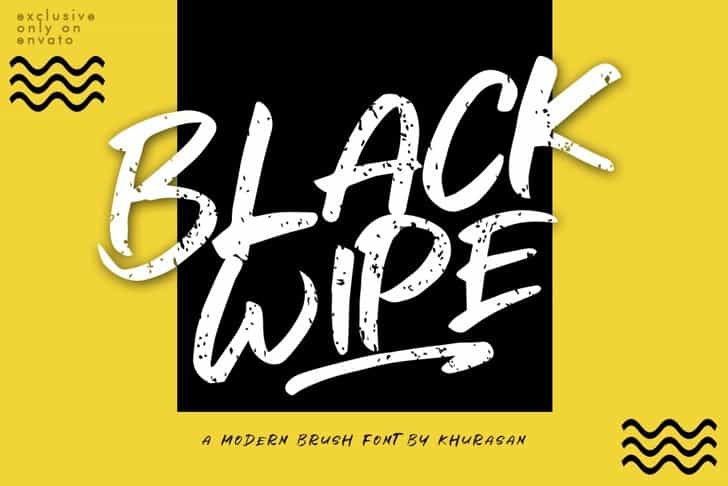
Black Wipe Font is a tangy new hand made typeface. Multi purpose use as is or really sweet. This script was a product of the inspiration and design with a large chisel felt marker. Bold characters make your logo to be at the forefront. Ideal for signage, posters, logos, headlines and many other uses!